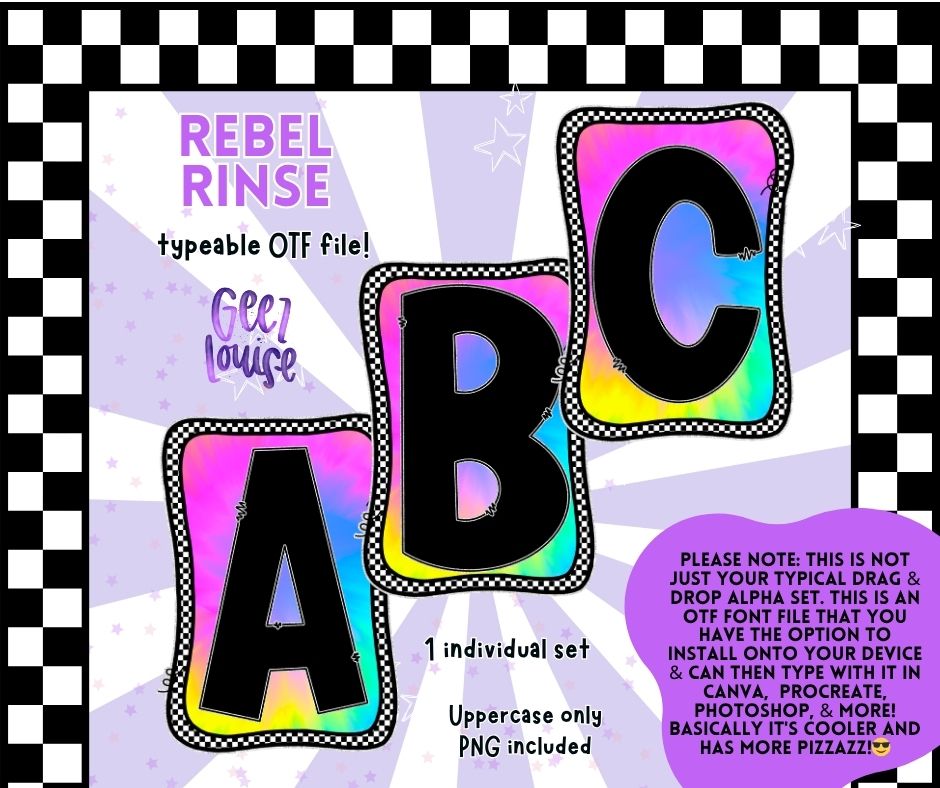
Rebel Rinse OTF Font + PNG Alpha Set
Add some loud, wild color to your next design with the Rebel Rinse OTF Alpha Set! This vibrant typeable font includes uppercase letters and PNG files, making it perfect for digital designers, sublimation lovers, and creative rebels. With an OTF file included, you can install and use this font in programs like Canva, Photoshop, Procreate, and more—no dragging or dropping required!